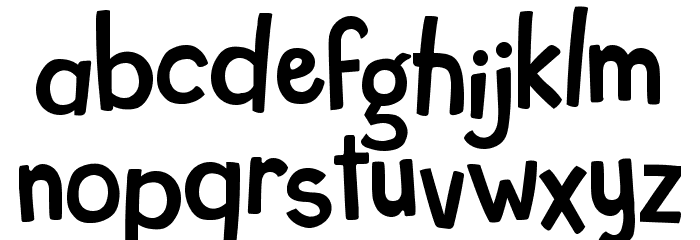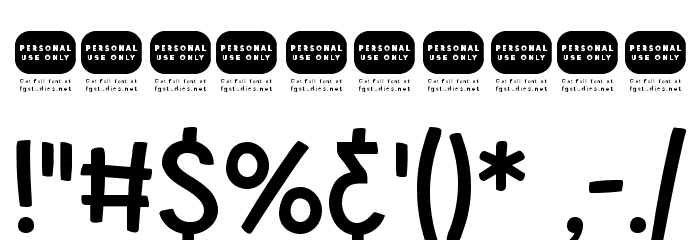
Piglet Font
This playful and whimsical font features a hand-drawn aesthetic with slightly irregular strokes, giving it a friendly and approachable feel. The characters are bold and rounded, with a consistent thickness that maintains readability. The uppercase and lowercase letters are well-balanced, and the numerals and special characters complement the overall style. This font exudes a sense of fun and creativity, making it ideal for projects that require a lighthearted touch.
A playful, hand-drawn font with bold, rounded characters.
- Proposed Projects: Ideal for children's books, playful branding, greeting cards, and casual invitations.
- Category: Handwritten
- Overall Style: Playful
- Use Case: Headlines, Logos, Casual Text